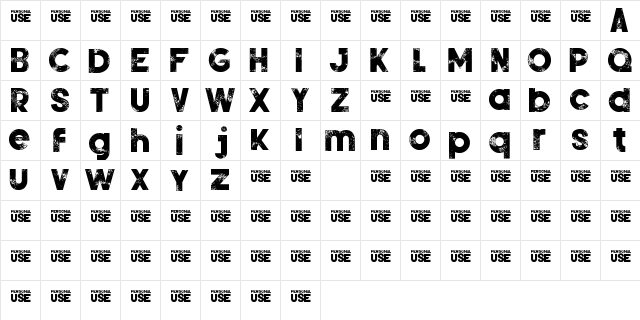
Silver Forte Grunge Grunge
| Foundry | LJ-Design Studios |
| Designer | Luis Jaramillo |
Design Context for Silver Forte Grunge Typeface
Silver Forte Grunge trades polish for personality, using distressed and eroded forms to bring grit and attitude to creative work.
A strong fit for alternative music projects, graffiti-adjacent design, and anything that deliberately resists polish.
Pro Tip: Use Silver Forte Grunge at larger sizes where the texture and irregularity of each letterform can be clearly seen — it loses its character at small sizes.